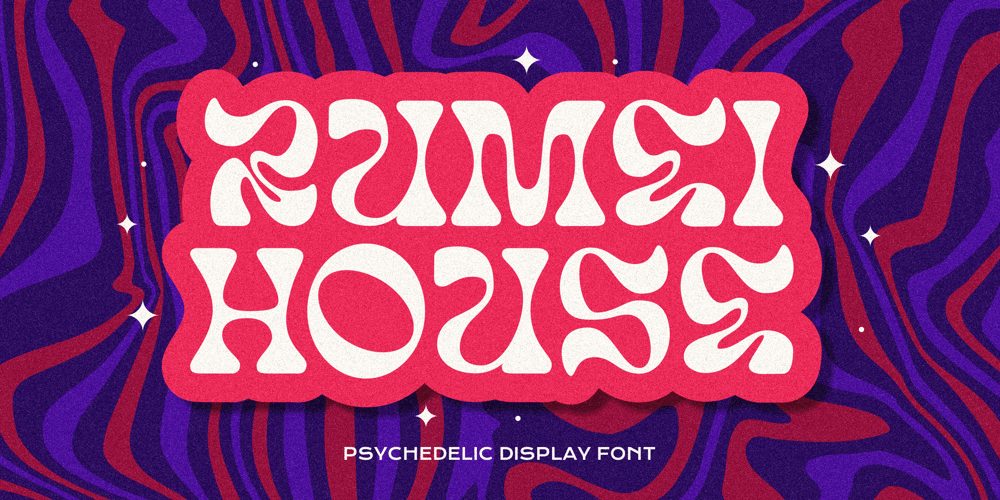
Rumei House
Rumei House font
Rumei House Font Family was designed by Aulia Savira Putri and published by Imoodev. Rumei House contains 1 styles and family package options. Rumei house is a psychedelic display font with roots in the art nouveau movement and the psychedelic sixties, add just the right dose of vintage freak a delia to your retro graphics with this original psychedelic style design. Evoke a warpy, wavy, whimsical vibe that harks back to the carefree 1960s or early 1970s era with sixties flashback.